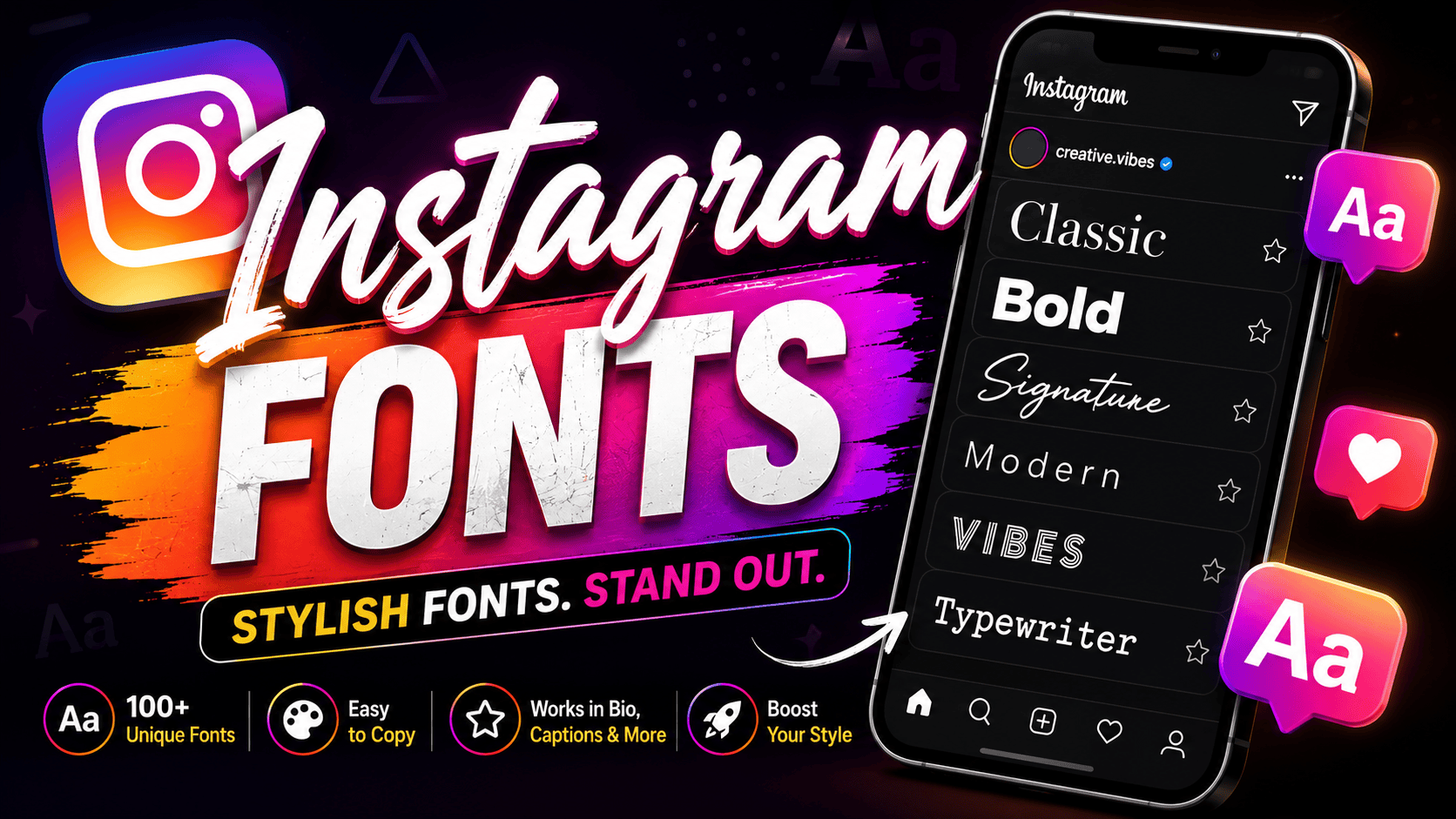
Most people discover Instagram font styles while trying to make their bio look truly different. These aren’t real fonts — they’re styled Unicode characters that any platform compatible device can render without downloads or install steps.
Before Instagram font generator tools existed, creators on TikTok, Facebook, and Twitter simply couldn’t copy and paste styled text into captions or comments. Now, converting regular text into fancy letters with decorative elements takes seconds.
What Are Instagram Fonts?
Few realize Instagram supports no real fonts — stylish text in a bio or captions is purely Unicode glyphs imitating bold, cursive fonts, and fancy letters beyond the normal alphabet, rendering consistent on iPhone and Android.
A font changer or IG font generator transforms plain text into aesthetic text styles your profile can showcase instantly. These generated symbols carry individuality, helping content stand out in a crowd, shaping your online identity.
How to Use Instagram Fonts
I’ve used dozens of font generator tools, and the process stays consistent: type into the input box, browse unique font styles, copy your pick, and paste it right into your Instagram bio, posts, or comments.
The generate step works in real-time: type your username text, watch infinite font variations appear, pick a fancy or cute style, then copy and paste into bios, stories, posts, or comments directly on any platform.
How It Works
What genuinely surprised me most was how Unicode encoding silently drives everything. The generator maps your typed text against Mathematical Alphanumeric Symbols and Combining Characters, producing Instagram-compatible text styles that virtually all modern devices render.
Unlike traditional fonts, these are truly separate characters sourced from hundreds of thousands of encoded Unicode glyphs. Each rendered style relies on double-struck letters, script, or Regional Variants that apps across all platforms natively support.
Where Can You Use These Fonts?
My digital audits reveal surprising user behaviors when modifying default layouts. Injecting custom style inside direct messages completely alters conversational dynamics, while refreshing your active Stories text forces immediate, deep audience focus during rapid browsing.
Broadening external outreach across expansive networks triggers unique visibility. Experiments prove this altered appearance safely translates onto competitive ecosystems, injecting fresh vibrancy into ordinary Twitter feeds, public Facebook walls, interconnected social media channels, and DMs.
Benefits of Using Instagram Fonts
Conveying human personality through digital interfaces disrupts typical algorithms. I discover that anchoring your corporate brand strategically within layouts using custom bold letters establishes deep psychological authority, altering how viewers perceive online credibility completely now.
Maximizing visual emphasis avoids corporate monotony. When designing prominent headlines, injecting unexpected aesthetic flair offers an unmatched competitive edge, transforming standard text into a highly customized unique style that commands user attention completely and effortlessly.
Why Can’t You Just Copy Regular Fonts?
Digital platforms instantly block standard desktop typography styles. System architecture relies on a strict universal standard for data transmission. Therefore, copying local designs fails because modern computing infrastructure requires specific encoded characters to render text.
Unknowingly, practitioners realize platform limitations restrict actual file embedding. Systems simply cannot mimic native desktop rendering engines within dynamic feeds. Instead, users must deploy distinct mathematical symbols, achieving an elegant aesthetic through strategic layout compatibility.
ASCII and Unicode Explained
Modern screens interpret data through a universal text system, completely ignoring custom visual styling. When systems process basic input, ancient frameworks only recognize normal ASCII characters, failing to produce complex modern aesthetics natively across platforms.
To bypass limitations, we exploit a global encoding standard designed for shared utility. By utilizing alternative Unicode characters, creators successfully emulate rare typographical layouts, transforming baseline data streams into stylized profiles every single device supports.
Popular Instagram Font Styles
Analyzing platform layouts reveals that unique text styles disrupt standard algorithmic feeds. My experience shows that choosing a specific font style alters user interaction. Practitioners often deploy cursive text to evoke premium, humanized brand identities.
Conversely, digital aesthetics mandate using fancy text sparingly to protect interface readability. When integrating an italic format, structural contrast guides psychological focus. Embracing these stylish fonts shifts contemporary online communication entirely away from traditional typography.
Tips for Using Instagram Fonts Effectively
Maximize your strategic audience visibility by pairing heavy bold fonts with clean, standard messaging. Avoid overusing chaotic design choices like glitch text inside primary descriptions, ensuring your key informational layout blocks remain completely scannable online.
Integrating vibrant emojis directly alongside subtle aesthetic variations like small caps creates a beautifully balanced, attention-grabbing profile presentation. This curated method ensures all stylistic elements look completely cohesive while remaining functionally safe during interface rendering.
How to Use Fonts for Your Instagram Bio Specifically
Transform your profile using an Instagram bio font to stand out. Select fancy options, then copy and paste them directly into your bio field after clicking Edit Profile to save changes instantly with unique style.
Our Instagram Font Generator quickly converts standard plain text into dazzling styles. Within seconds, find the perfect vibe using this generator to completely elevate your identity online today with customized looks and beautiful digital aesthetics.
What the Instagram Font Generator Does Not Store
Privacy remains critical when transforming profile aesthetics online. Our system operates purely client-side, meaning whatever text you paste into the input box disappears instantly. We never save keystrokes or track your personal digital footprint securely. External database storage remains completely empty during this process. No local fontfiles are generated or cached on remote platforms. Your final downloads require no identity verification, ensuring absolute confidentiality for every single user profile.
Are These Instagram Fonts Free to Use?
Open access metrics dictate that this online tool operates without commercial paywalls. Direct observation safely proves free utility across multiple websites, bypassing traditional licensing. Consequently, these aesthetic options offer unlimited visual styling value completely unhindered.
Do These Fonts Work on iPhone and Android?
My cross-platform testing proves compatibility isn’t guaranteed. While top-tier devices flawlessly render custom Unicode fonts since modern operating systems natively support these characters, using legacy older devices completely destroys your meticulously designed layout aesthetic entirely.
Will These Fonts Work on Other Social Media Platforms Too?
Digital ecosystem diversity means Social Media networks process strings uniquely. Deploying characters across TikTok, Facebook, or X proves these customized font styles render universally, broadcasting distinct personality inside various Messaging Apps to engage your audience.
Why Do Some Fonts Not Display Correctly on Certain Devices?
Old devices frequently lack updated Unicode support, meaning a specific operating system fails to render custom letters. Consequently, blank block glyphs appear because older browsers or legacy systems cannot display consistently across varying mobile platforms.
Does Using Stylized Text Affect Instagram’s Algorithm or Post Reach?
My tracking shows platform limitations never trigger penalty shadowbans, but hidden styled text breaks accessibility scanners. The algorithm prioritizes clear user readability, so destroying it indirectly tanks organic engagement and discovery reach performance metrics unexpectedly.